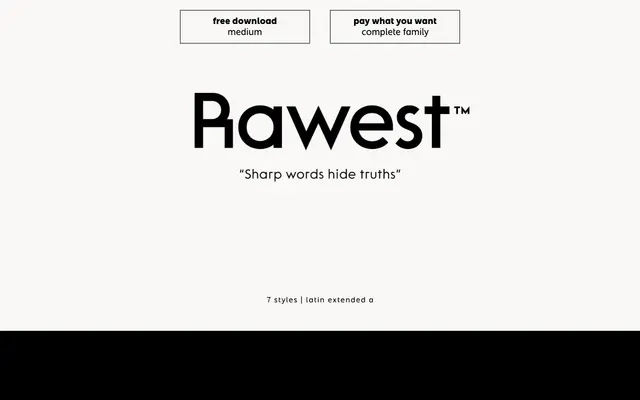
Rawest
atipo foundry · Raul Garcia del Pomar, Ismael Gonzalez (atipo) · 2021
A neo-geometric sans from atipo in seven upright weights, drawn around the idea of the beauty of toughness.
A neo-geometric sans by atipo, summarised by the studio as The beauty of toughness. Seven upright weights run from Thin to Bold without italics, and the family carries fractions, superiors and ordinals. Sits in identity, packaging and display work that wants a hard-edged geometric voice without slipping into pure utility. Atipo offer Medium as a free download with the rest of the family on a pay what you want basis.
Atipo describe Rawest as a neo-geometric, summarised by the line The beauty of toughness, supplied as upright cuts in seven weights without italics.